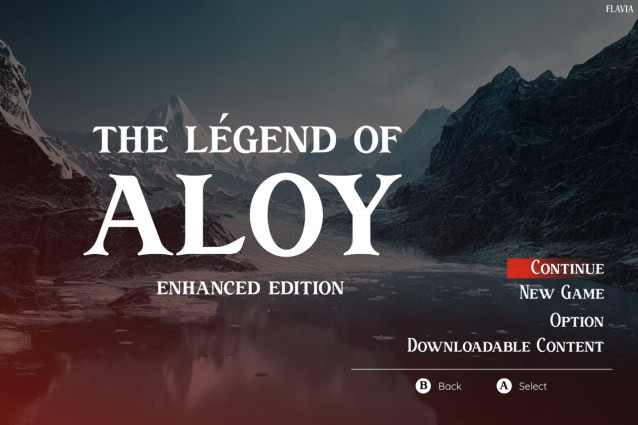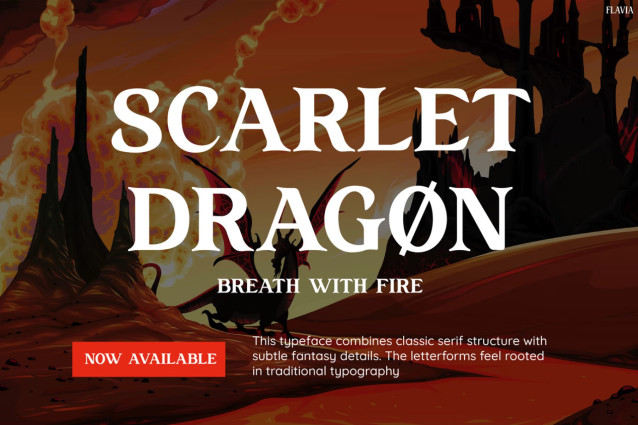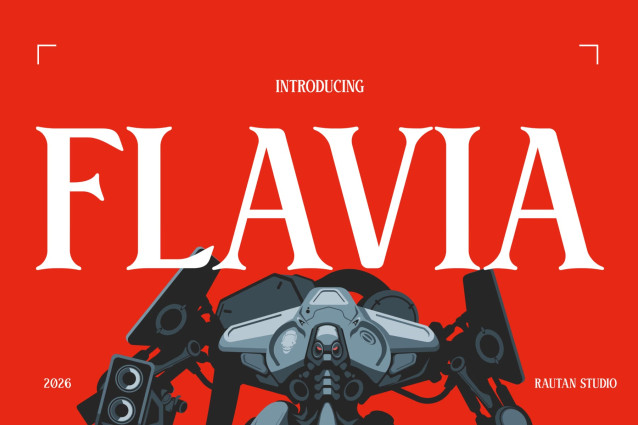
Flavia Font
Flavia Font is a powerful display serif designed to bring cinematic impact and dramatic elegance to your visuals. At first glance, it feels bold, sharp, and authoritative. Moreover, its high-contrast strokes and refined serif details create a heroic and immersive atmosphere. Each letter is crafted with precision, so it delivers a strong visual presence in every composition.
In addition, the font captures the essence of fantasy worlds, action games, and epic storytelling. Because of its striking style, Flavia instantly elevates titles, menus, and branding into something unforgettable